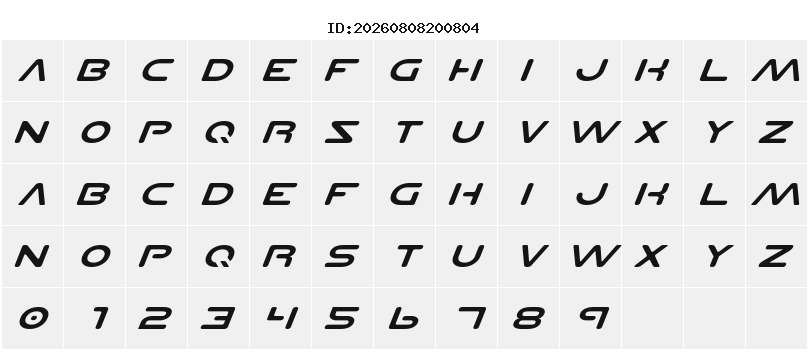
Planet NS Expanded Italic Preview
• Font Name: Planet NS Expanded Italic
• Font Style: Expanded Italic
• Full Font Name: Planet NS Expanded Italic
About Planet NS Expanded Italic.ttf
Planet NS Expanded Italic.ttf is a modern, elegant sans-serif font designed for ultimate readability and visual harmony. Perfect for branding, headlines, web design, and print materials.